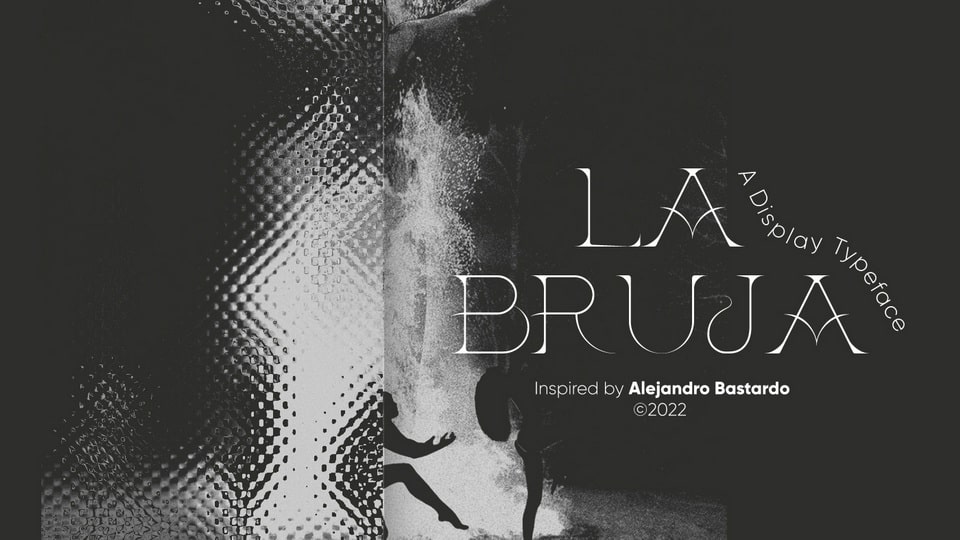
Download La Bruja font, a typeface that is inspired by the iconic horror movies. La Bruja font presenting in a more minimalist way with an evil, sexy, sharp and necromantic aspect. It is legible for large texts and extremely versatile.
Designer: Alejandro Bastardo